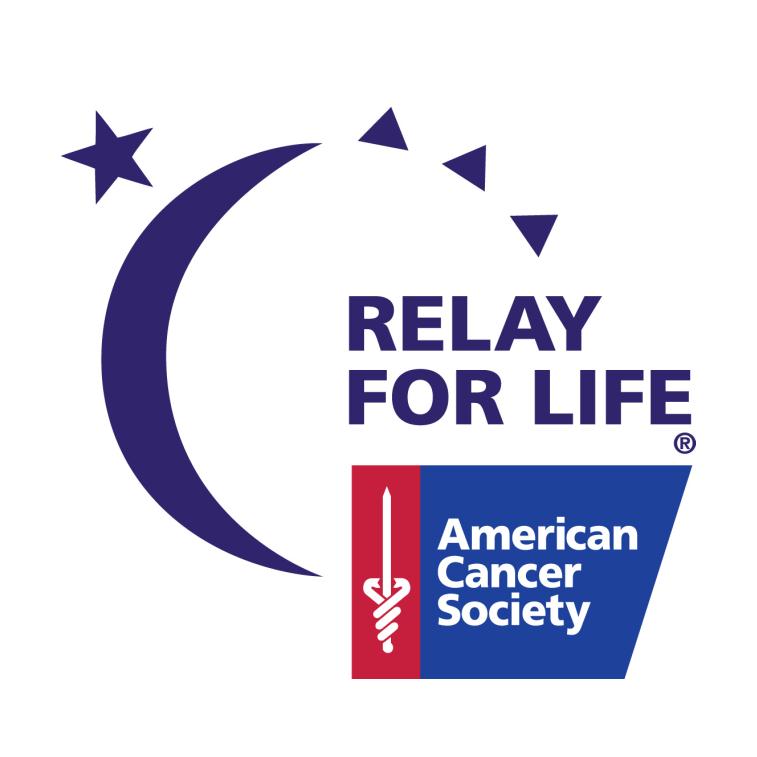
Relay For Life Font
CampaignRelay For Life is an annual fundraising event organized by the American Cancer Society (ACS). The goal of the event is to raise money for cancer research, patient support, and other ACS programs that help people affected by cancer.
The Relay For Life logo is written in Frutiger Black, a humanist sans-serif font designed by Adrian Frutiger. The American Cancer Society also uses this font as its wordmark.